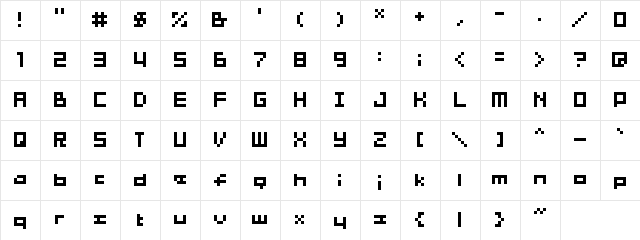
04b_03b Regular
Design Context for 04b_03b Typeface
04b_03b takes a measured approach to typography — its balanced proportions and neutral character make it a reliable workhorse for both digital and print work.